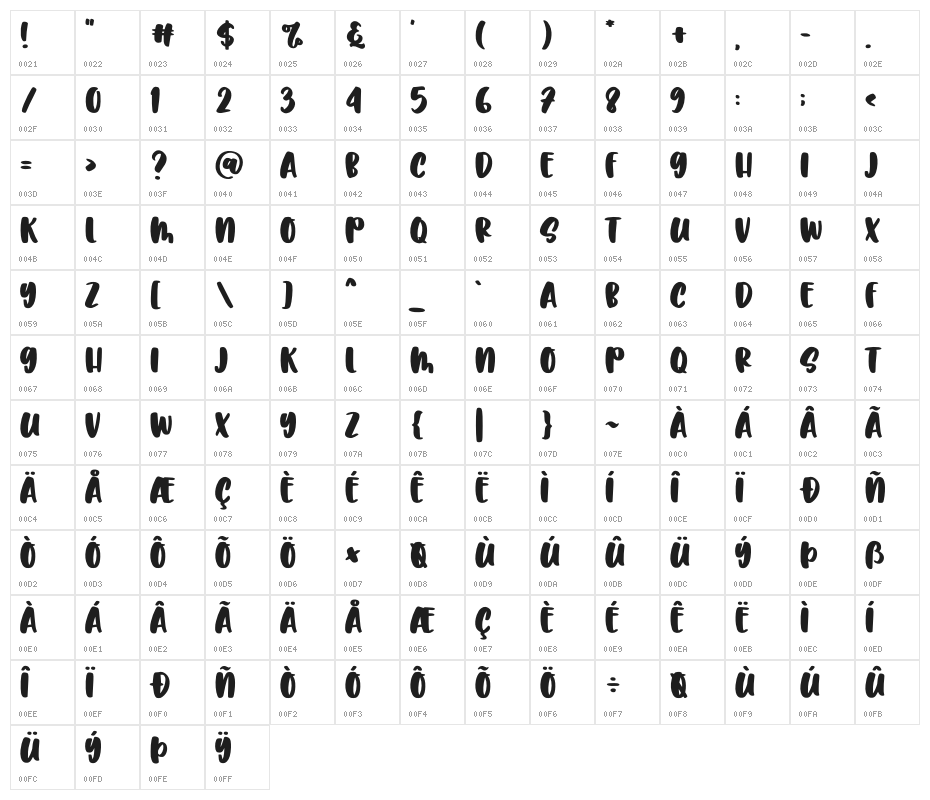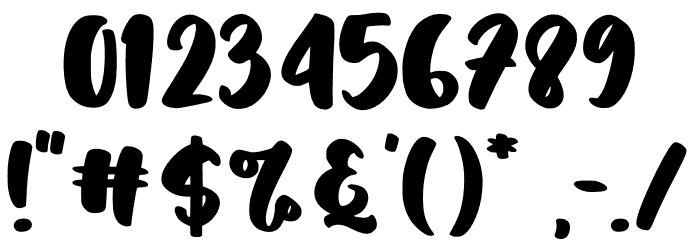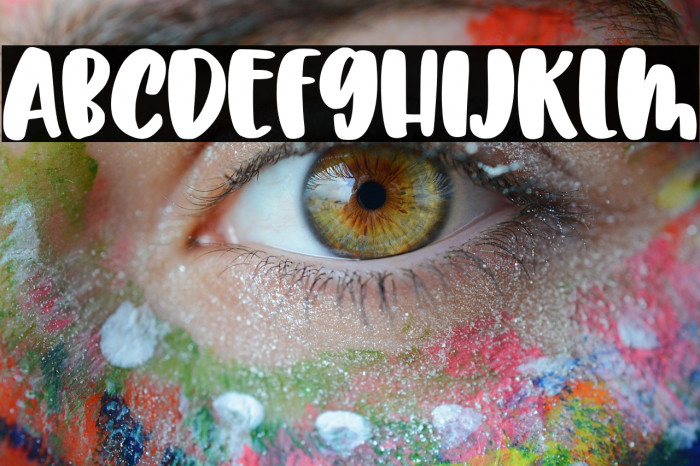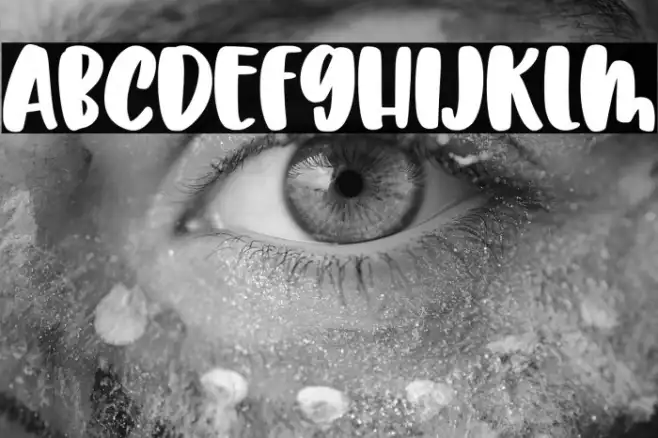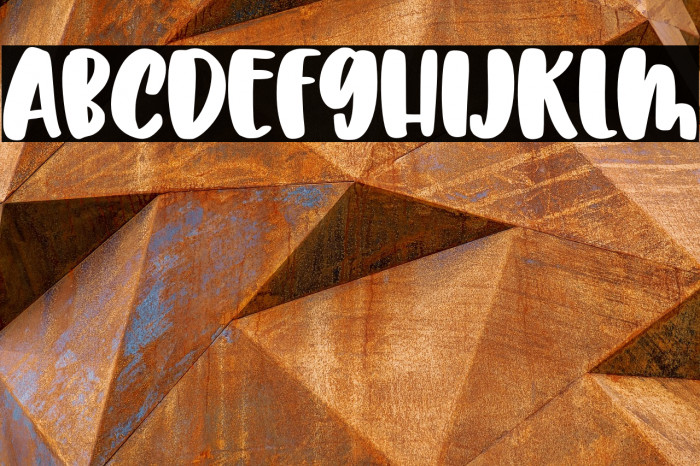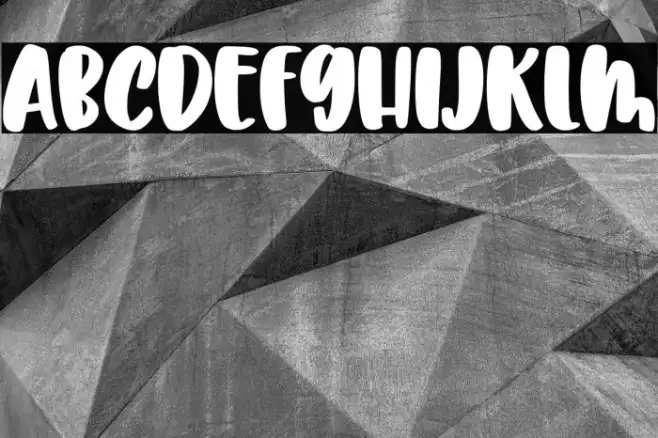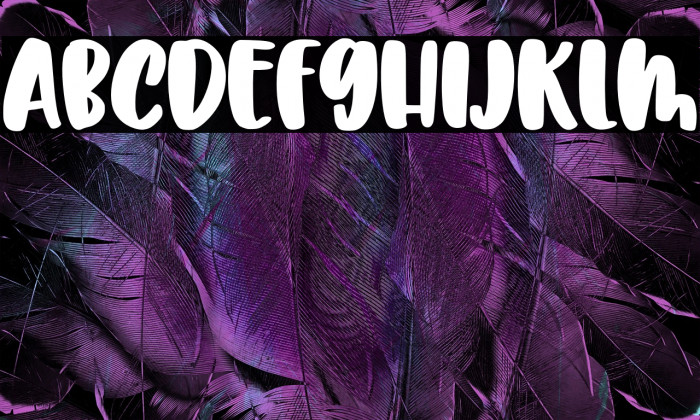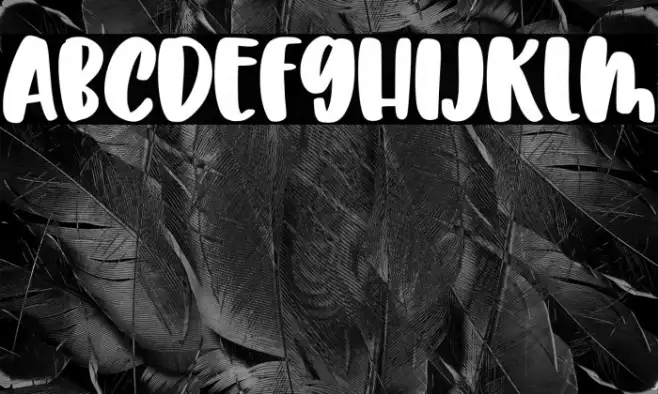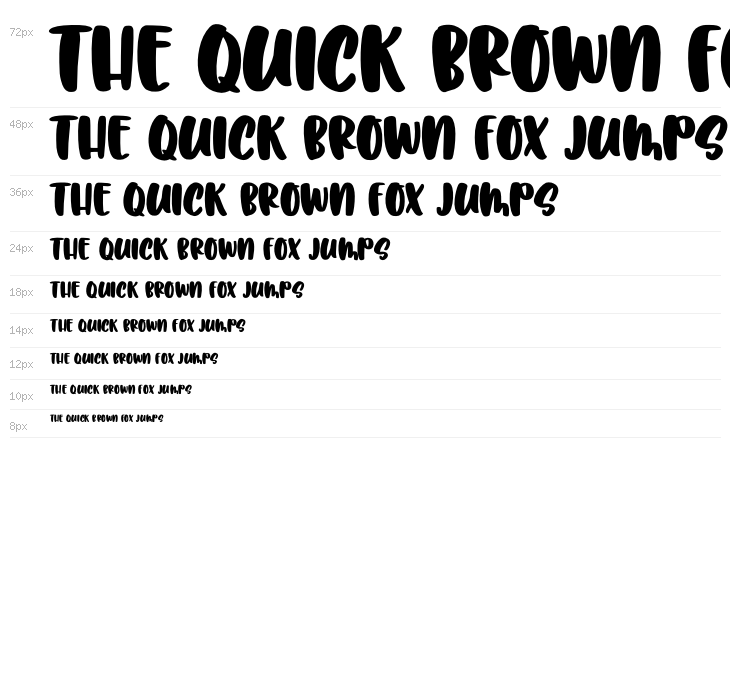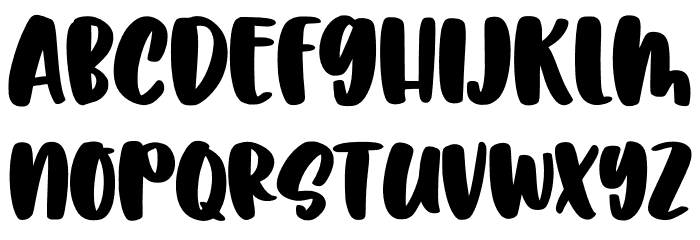
Artmy Solid Font
Artmy Solid Description
This font exhibits a bold and playful style, characterized by its thick, rounded strokes and a hand-drawn appearance. The letters are closely spaced, creating a sense of cohesion and energy. The uppercase and lowercase characters maintain a consistent weight, contributing to a uniform look. The numbers and special characters follow the same design principles, ensuring visual harmony across all elements. This font's dynamic and lively nature makes it suitable for projects that require a touch of creativity and fun.
| Proposed Projects | Ideal for children's books, playful branding, event posters, and creative social media graphics. |